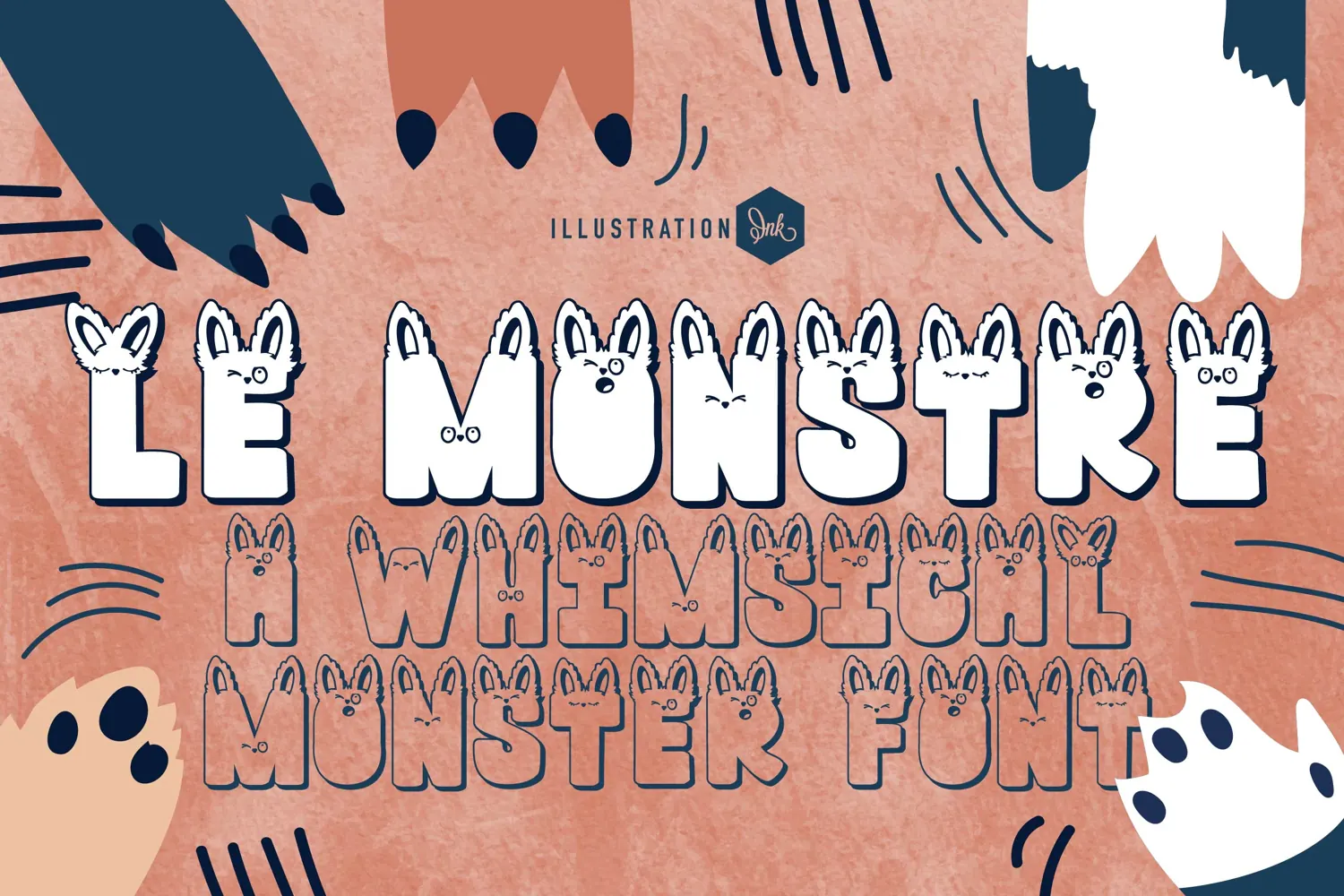
Le Monstre Cute Monster Display Font
Le Monstre 3D is a playful decorative font that transforms every letter into a lovable little monster. Featuring expressive faces, furry details, dimensional styling, and a coordinating outline version, it is perfect for children’s designs, Halloween crafts, party decorations, classroom projects, stickers, posters, and playful product packaging.